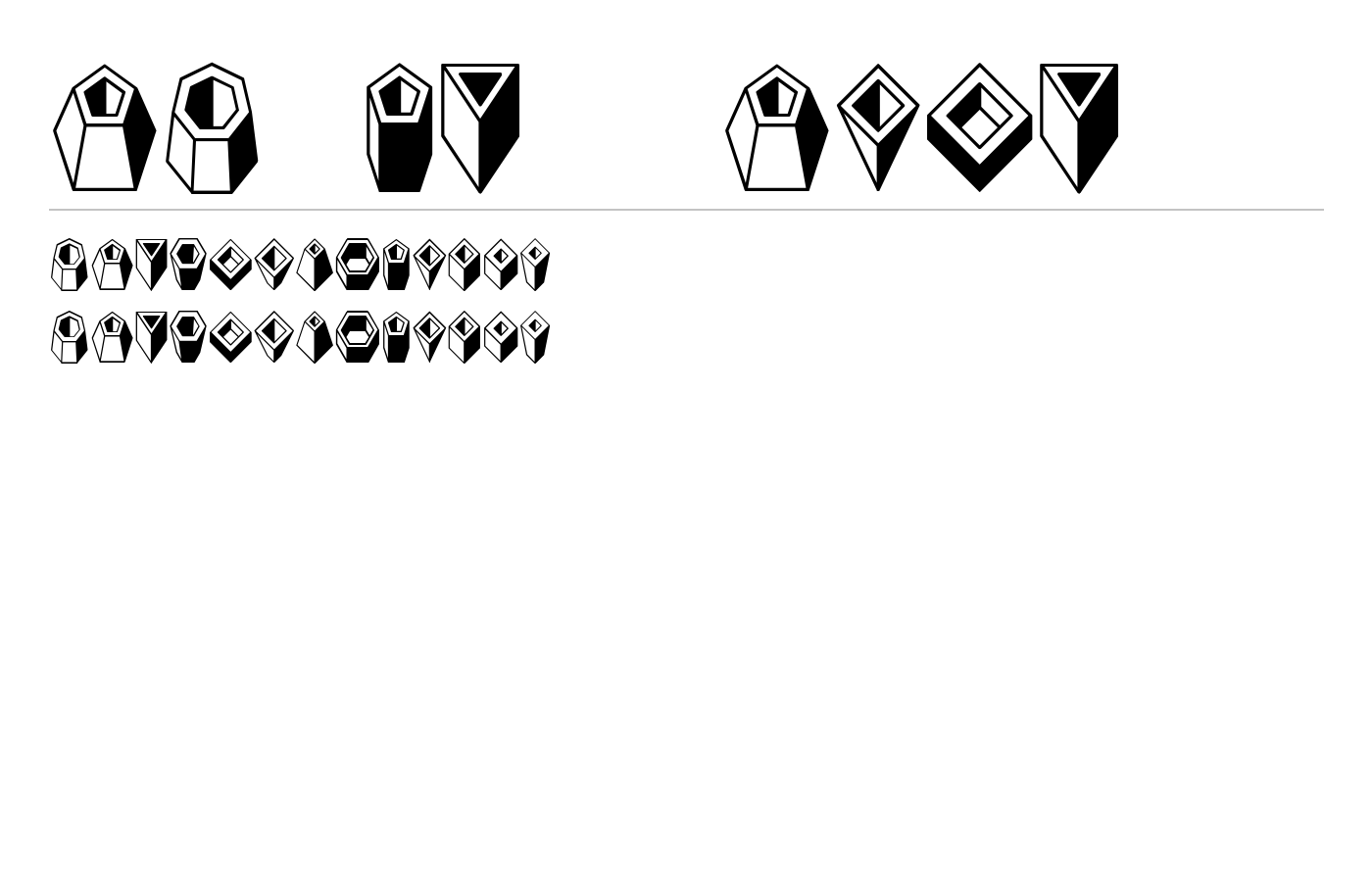
Basic Objects Font is a unique decorative typeface composed of abstract geometric shapes that resemble three-dimensional objects rather than traditional letters. Its bold black and white contrast and faceted forms give it a modern, artistic feel, ideal for eye-catching logos, posters, and creative branding projects where a distinctive and unconventional style is desired. This font works best as a display element due to its complex shapes and visual impact.
Basic Objects Font
About Basic Objects Font
| Font family | Basic Objects Font |